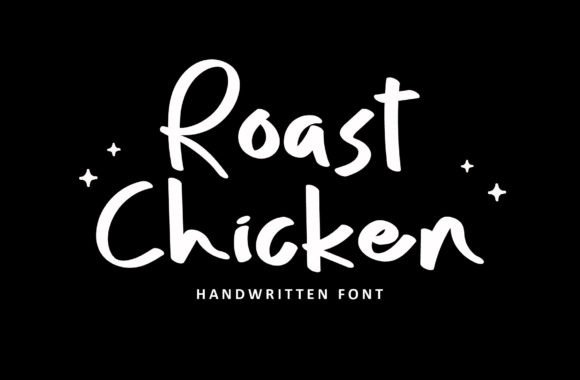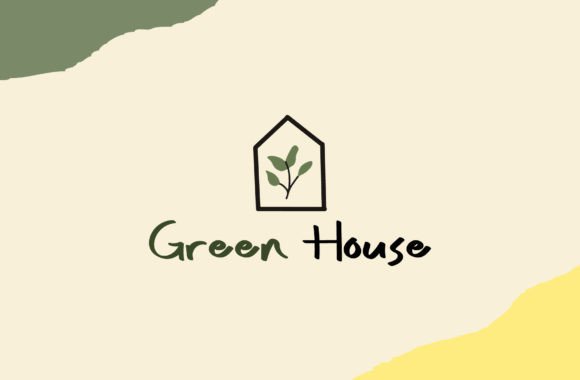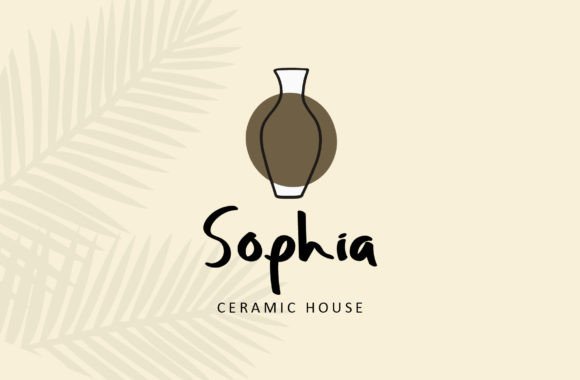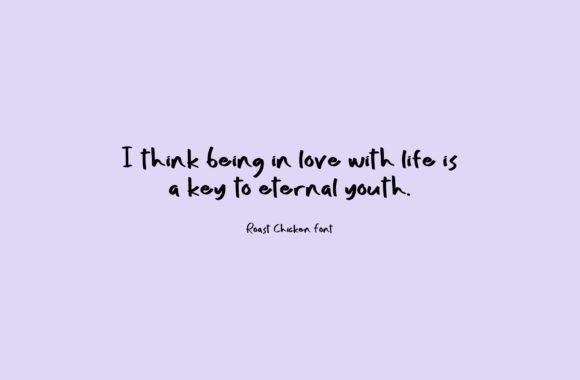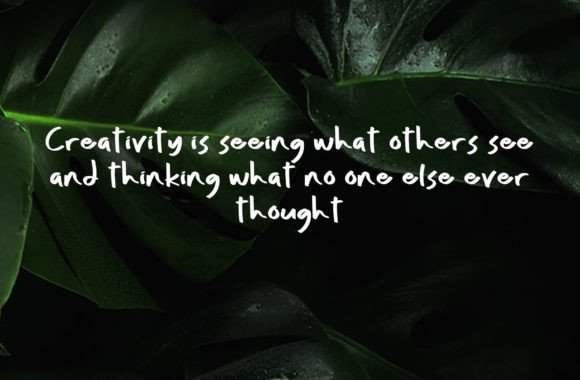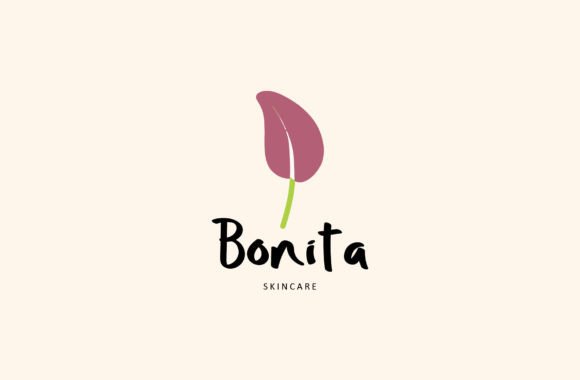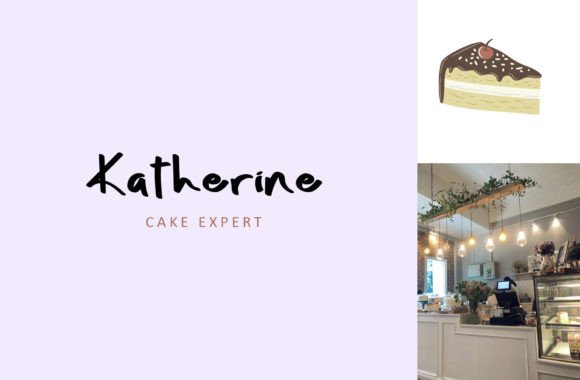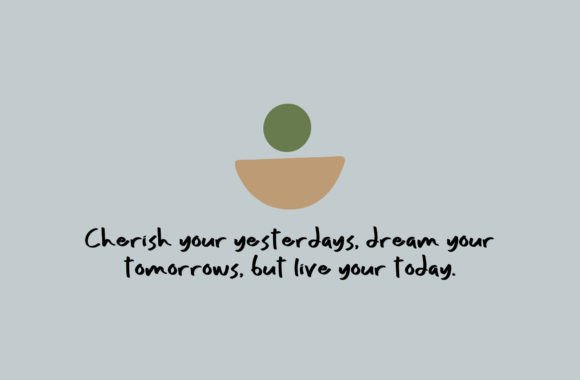
About Roast Chicken Font
Roast Chicken font is an elegant and distinctive handwritten typeface that stands out with its unique character. When you download Roast Chicken font, you add a versatile and stylish script to your design toolkit. This font is perfect for a wide variety of creative projects, from branding and logos to invitations and social media graphics.
Roast Chicken font combines elegance with versatility, making it an excellent choice for anyone looking to elevate their designs. By downloading this font, you can infuse your work with a handcrafted, artistic flair that captures attention and adds personality to your creations.
Perfect for Various Creative Applications
This font suits many design needs. Whether you’re working on logos, branding projects, marketing materials, or personal crafts, Roast Chickenfont offers the flexibility to complement your style. Downloading this font means you can easily create visually appealing and cohesive designs that stand out.
Enhance Your Design Projects
Using Roast Chickenfont will bring your creative ideas to life. Its smooth, flowing strokes and balanced form make it suitable for:
Logo design and branding
Greeting cards and invitations
Social media posts and advertisements
Packaging and product labels
Adding Roast Chickenfont to your collection opens up countless possibilities to express creativity and sophistication.